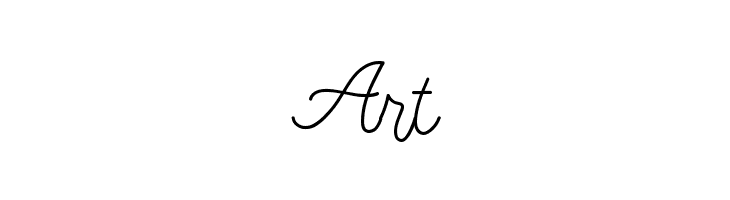
A playful, handwritten font with smooth, rounded edges and a casual style.
A graceful script font with flowing, connected strokes and elegant curves.
A modern, flowing script font with elegant, interconnected letters.
A playful handwritten font with artistic flair and dynamic strokes.
A playful, cursive-inspired font with elegant curves and dynamic strokes.
A playful handwritten font with smooth, flowing lines and a casual appearance.